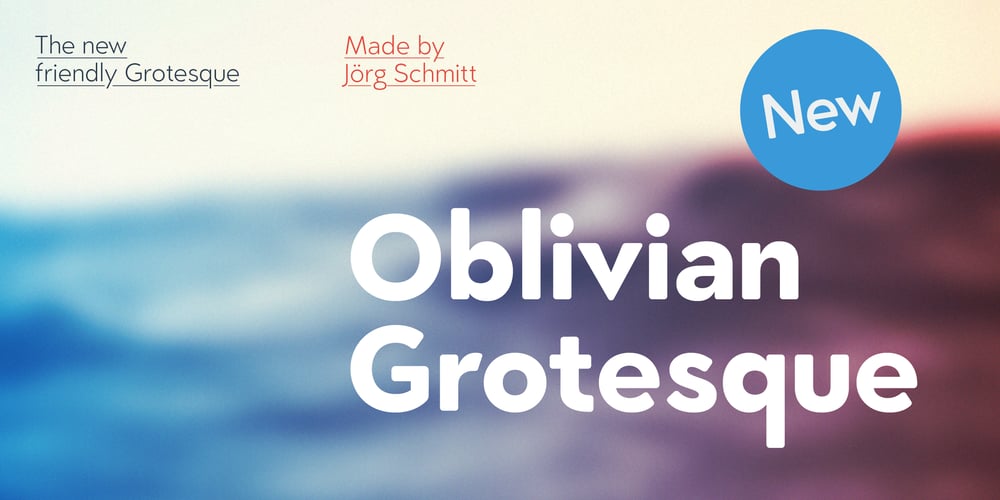
Oblivian Grotesque Font Family was designed by Jörg Schmitt and published by Jörg Schmitt. Oblivian Grotesque contains 10 styles and family package options. Oblivian Grotesque is a sans serif type family of ten weights. The typeface is based on geometric forms with bits and pieces of modern humanistic grotesque fonts. Due to the rounded edges it has a very soft / warm look and feel. It comes along with varius OpenType features such as table and old style figures. Oblivian Grotesque as an extended character set that support Central and Eastern European as well as Western European.